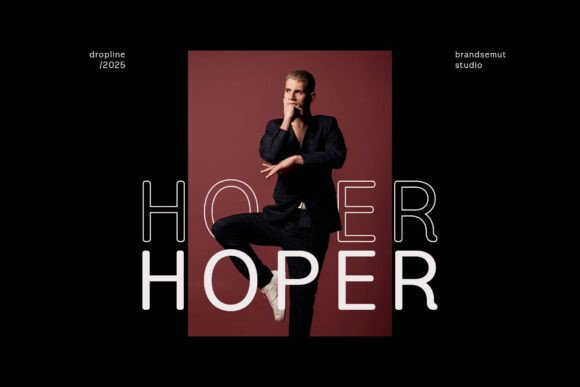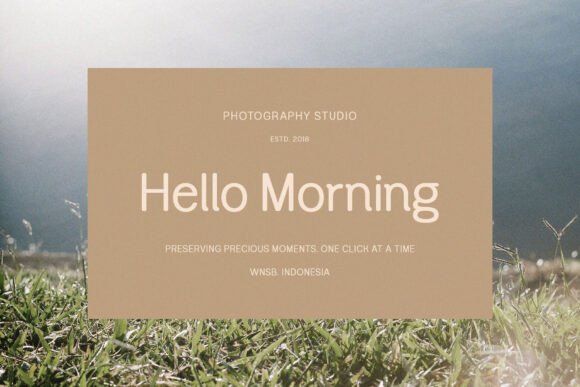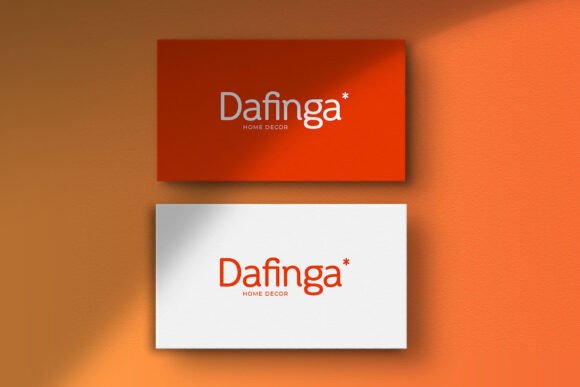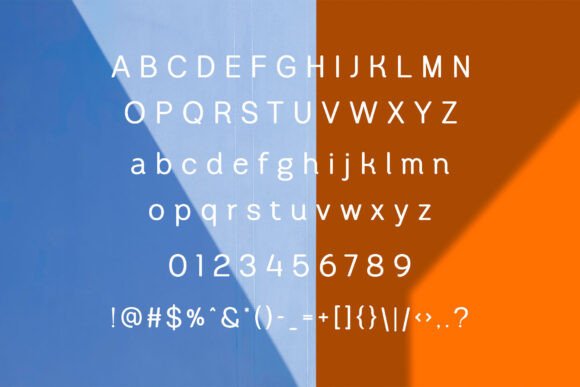
Introducing Dropline: The Modern Sans Serif Font for Creative Projects
In the world of typography, a good font can make all the difference in the success of a design project. Whether you’re a professional designer, a crafty DIY enthusiast, or a business owner looking to create a strong brand identity, the right font can elevate your work and leave a lasting impression on your audience. That’s why we’re excited to introduce Dropline, a modern and simple sans serif font that’s perfect for a wide range of creative projects.
What is Dropline Font?
Dropline is a modern sans serif font that’s specifically designed to help you create stunning headings, logos, branding materials, magazines, product packaging, and invitations. With its clean lines and smooth curves, Dropline adds an extra touch of class to any project, making it perfect for designers and crafters who want to create high-end visuals.
Key Features of Dropline Font
So, what makes Dropline font so special? Here are some of its key features:
- Clean and Simple Design: Dropline has a clean and simple design that’s perfect for creating modern and sophisticated visuals.
- Smooth Curves: The font features smooth curves that add a touch of elegance to any project.
- Versatile: Dropline is a versatile font that can be used for a wide range of projects, from headings and logos to magazines and product packaging.
- Easy to Read: The font is easy to read, even at small sizes, making it perfect for body text and captions.
Use Cases for Dropline Font
Dropline font is perfect for a wide range of design projects, including:
- Headings and Titles: Use Dropline to create stunning headings and titles that grab attention and add a touch of sophistication to your designs.
- Logos and Branding: Create a strong brand identity with Dropline, which is perfect for logos, business cards, and other branding materials.
- Magazines and Newspapers: Use Dropline to create engaging and easy-to-read magazines and newspapers.
- Product Packaging: Add a touch of class to your product packaging with Dropline, which is perfect for labels, packaging materials, and more.
- Invitations and Events: Create stunning invitations and event materials with Dropline, which is perfect for weddings, parties, and other special occasions.
Why Choose Dropline Font?
So, why should you choose Dropline font for your next design project? Here are some reasons:
- Unique and Modern Design: Dropline has a unique and modern design that will help your projects stand out from the crowd.
- High-Quality: The font is high-quality and professionally designed, ensuring that your projects look professional and polished.
In conclusion, Dropline is a modern and simple sans serif font that’s perfect for a wide range of creative projects. With its clean lines, smooth curves, and versatile design, Dropline is a great choice for designers and crafters who want to create high-end visuals. Whether you’re looking to create stunning headings, logos, branding materials, magazines, product packaging, or invitations, Dropline is the perfect font for you. So why wait? Download Dropline today and take your designs to the next level!